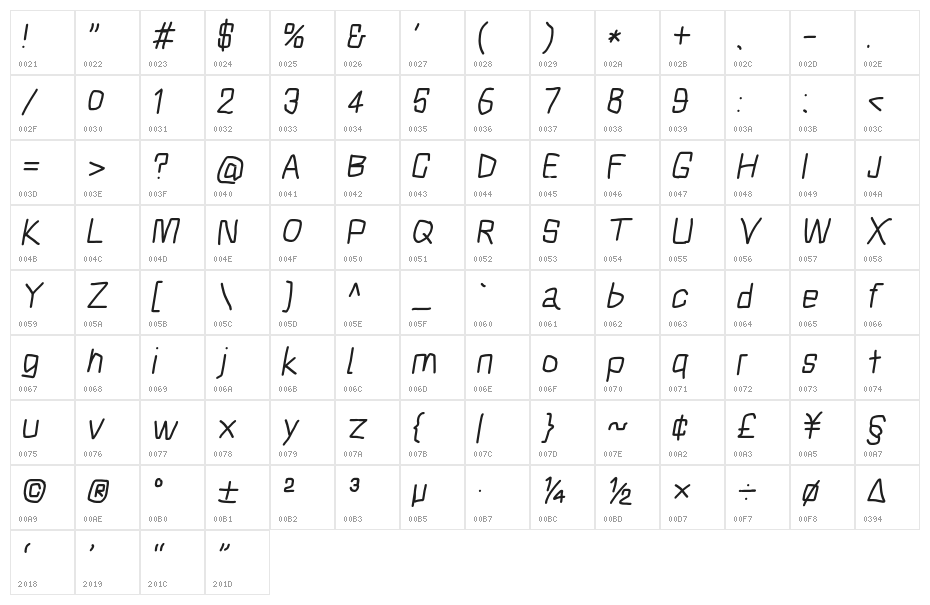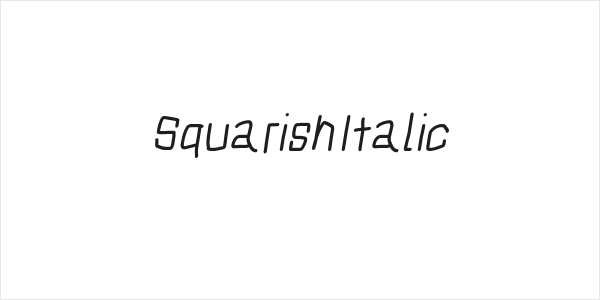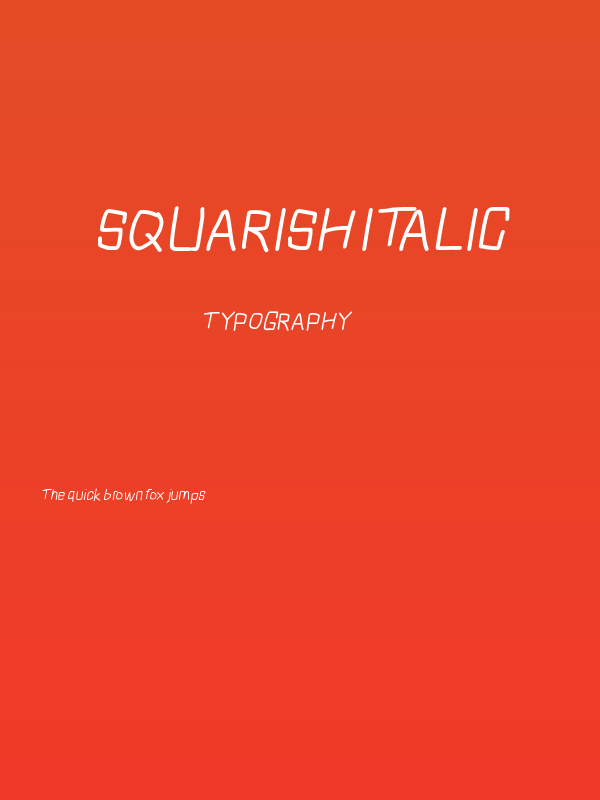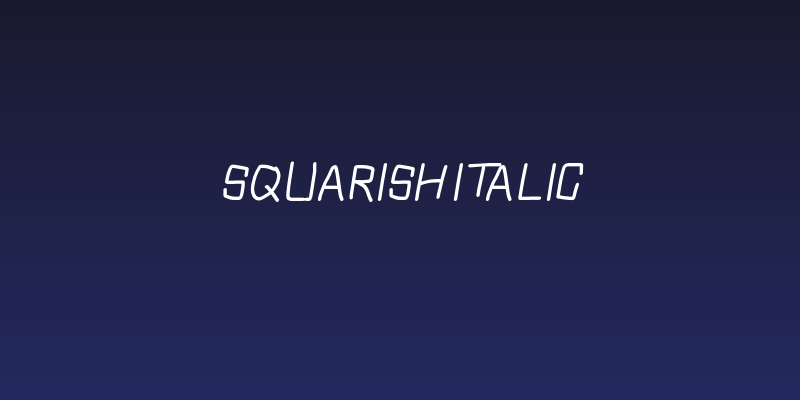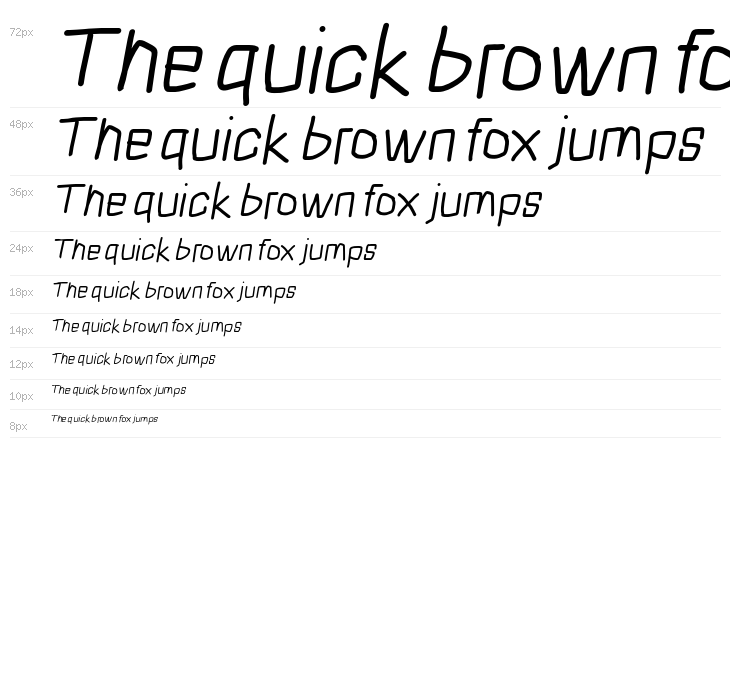
Squarish Italic Font
Squarish Italic Description
This font features a unique squarish and italicized style, combining geometric shapes with a slight slant for a modern and dynamic appearance. The uppercase and lowercase letters maintain a consistent angular form, creating a cohesive look across the alphabet. Numbers and special characters follow the same design principles, ensuring uniformity throughout. The font's distinctiveness lies in its blend of straight lines and curves, giving it a contemporary yet approachable feel. Its legibility is enhanced by the clear separation between characters, making it suitable for various design applications.
| Use Case | Logos, Headlines, Digital interfaces |
| Proposed Projects | Ideal for tech branding, modern posters, digital interfaces, and innovative product packaging. |